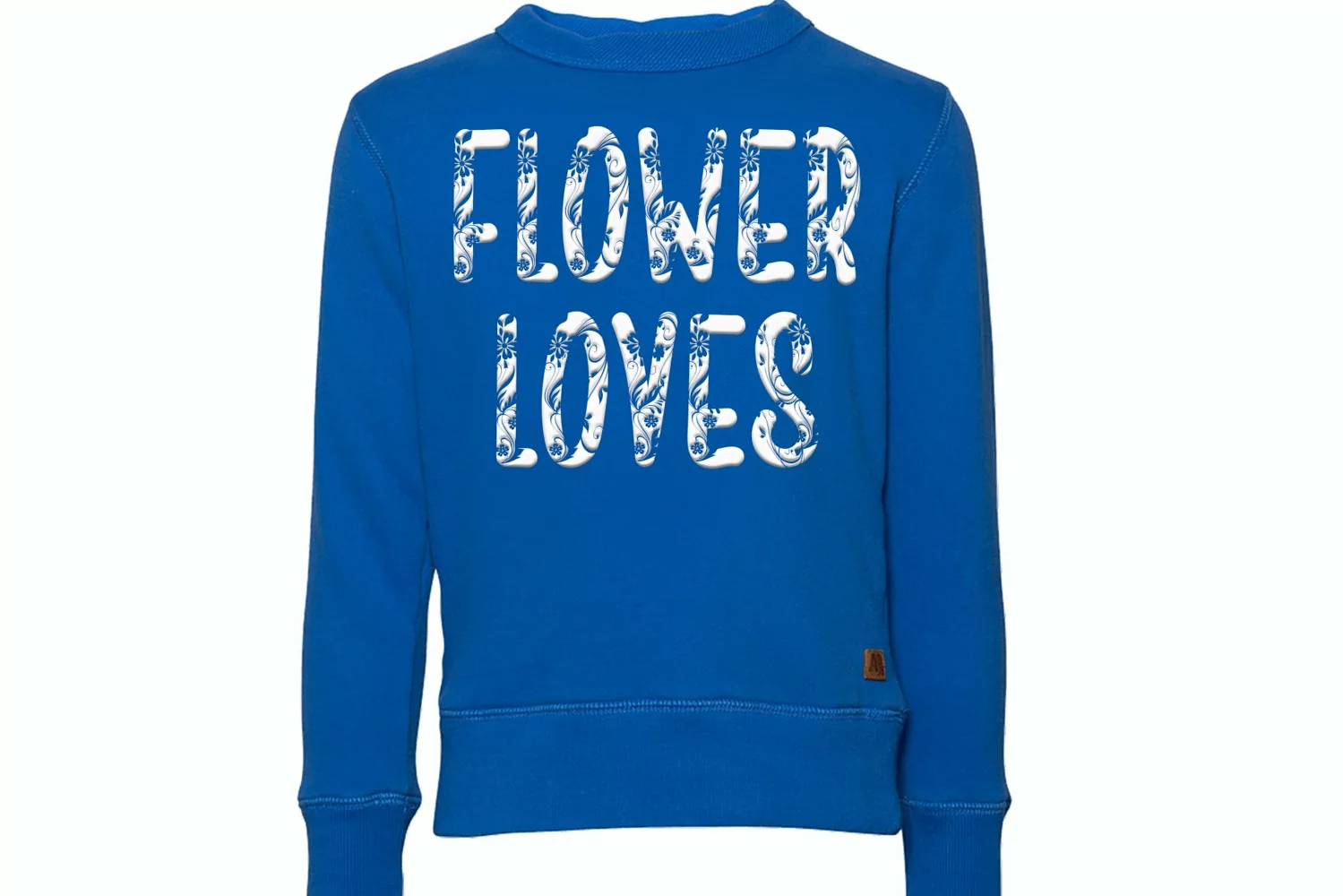
Floral Design
Introducing, this is our newest product, we call this product Floral Design,
It looks amazing with sweet touches and beautiful curves in each letter. Floral Design fonts are perfect for: wedding invitations, fashion magazines, logos, signatures, photography, watermarks, wall displays, social media,